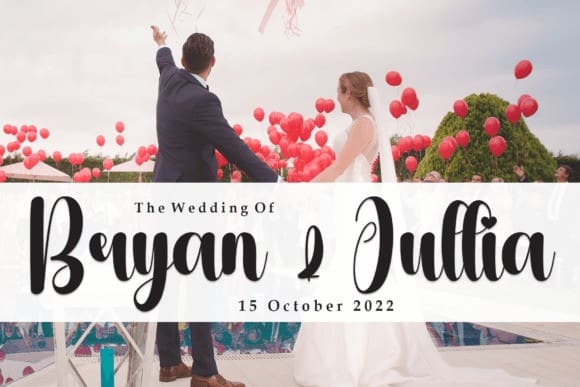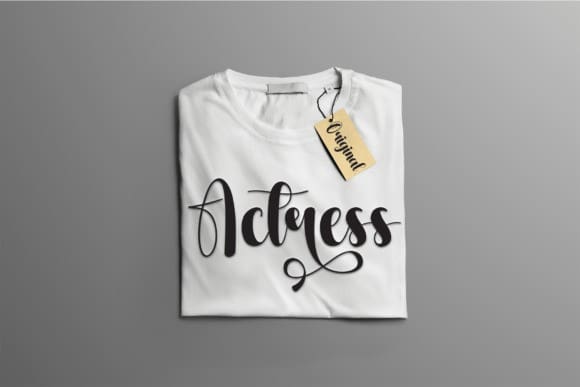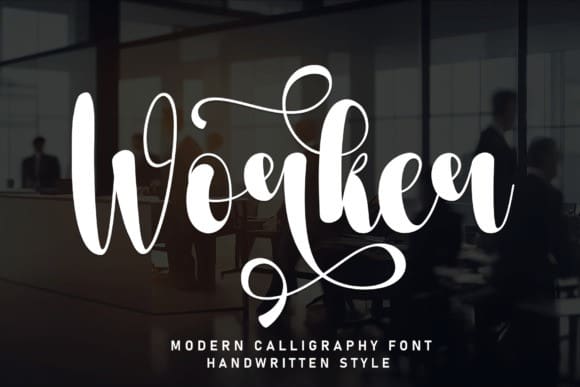
Worker Script Font
Worker Script Font, this is a sweet and friendly handwritten display font. Cute and fun, this font is ideal for writing wedding invitations, cards, or any other design that might need a fun touch!